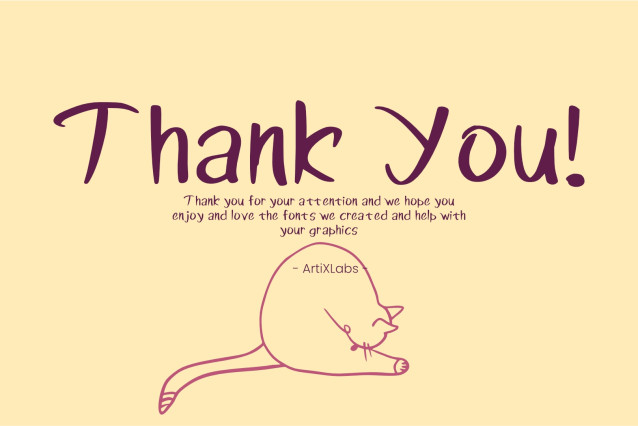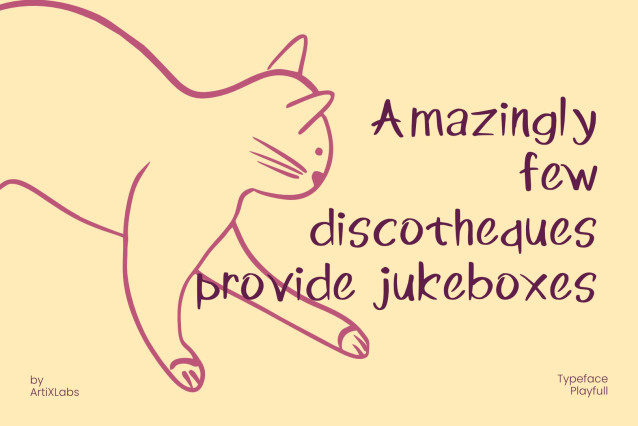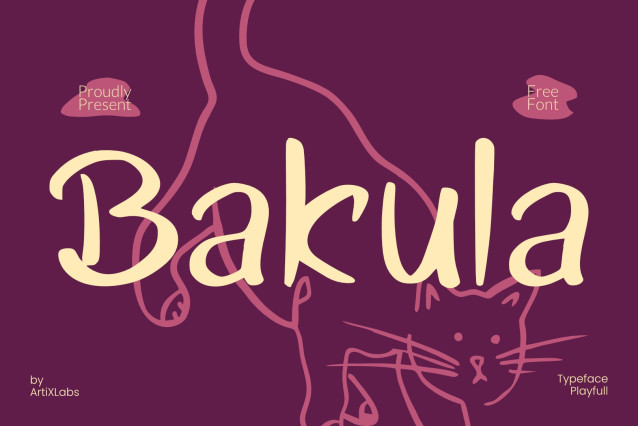
Inject whimsical cat-like agility, organic hand-drawn bounce, and playful personality into your creative work with Bakula! Crafted as a playful display typeface, Bakula pairs gentle brush strokes with expressive terminal curves and lively proportions. Its carefree, high-energy posture delivers an instant splash of quirky fun and handcrafted warmth to display headlines.
Ideal for pet shop branding, children’s storybooks, playful sticker packs, cafe logos, t-shirt prints, casual quote graphics, and custom Cricut or Silhouette craft SVG creations!